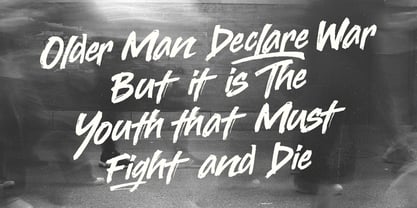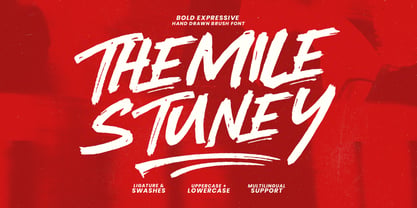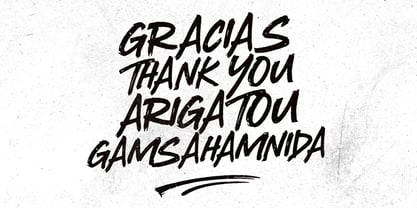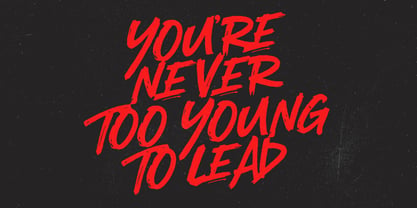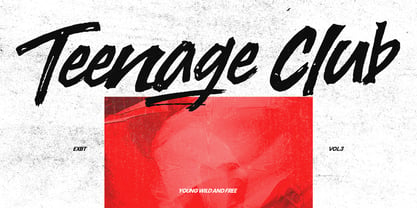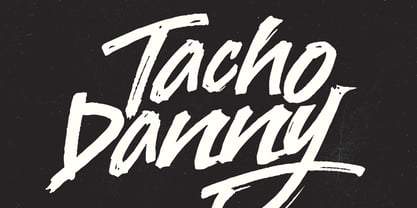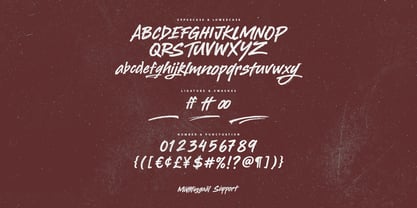
Themile Stuney
by Maulana Creative
The Themile Stuney Font Family was designed by Gilang Maulana and published by Maulana Creative. Themile Stuney contains 1 styles. More about this family
Themile Stuney is a striking hand-drawn brush font designed to make a powerful visual impact. Featuring strong textures and energetic strokes, this typeface brings an authentic, raw aesthetic to any creative layout. Complete with uppercase and lowercase letters, custom ligatures, dynamic swashes, and comprehensive multilingual support, it offers incredible flexibility. Perfect for attention-grabbing headlines, music album covers, event posters, gaming graphics, and modern branding projects that require a bold, rebellious, and expressive touch.
Designers: Gilang Maulana
Foundry: Maulana Creative